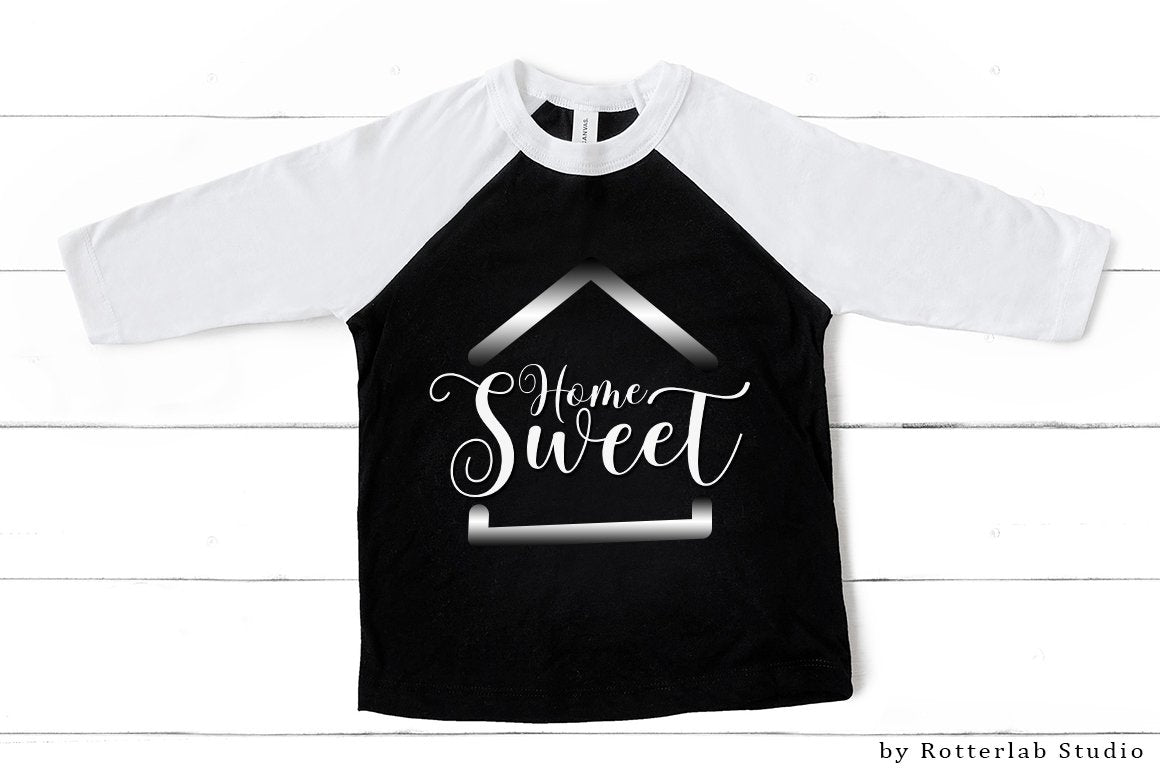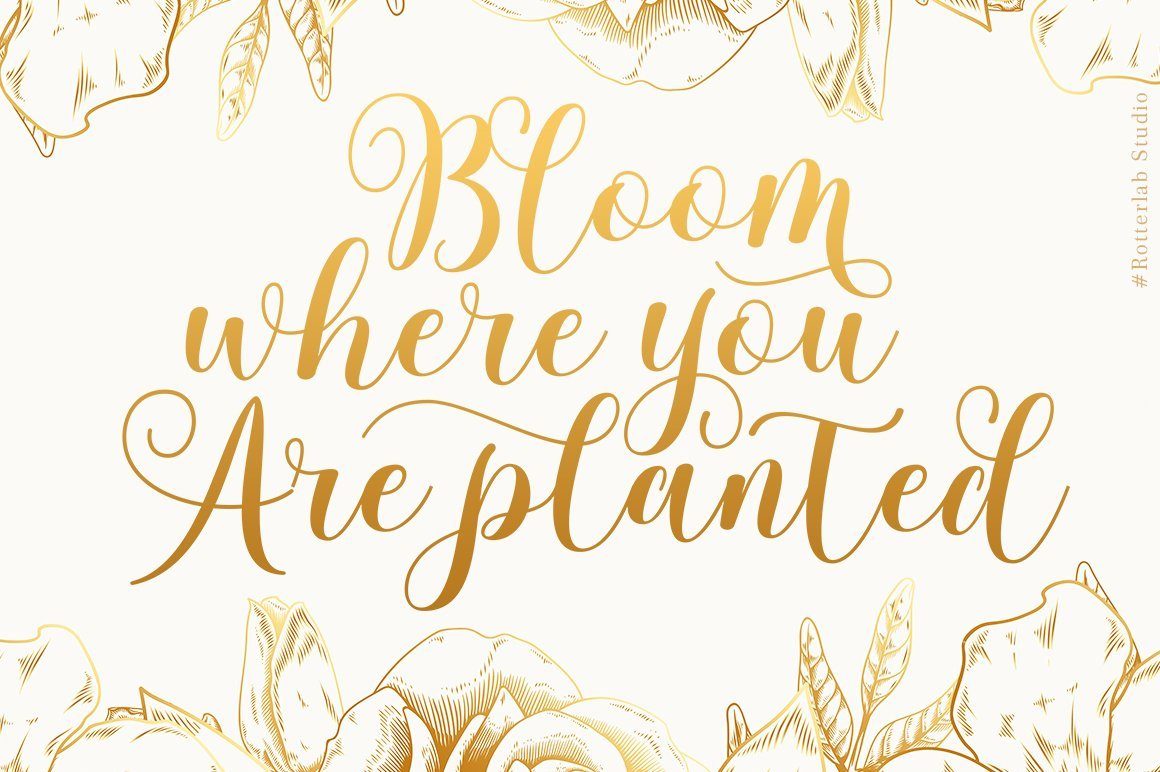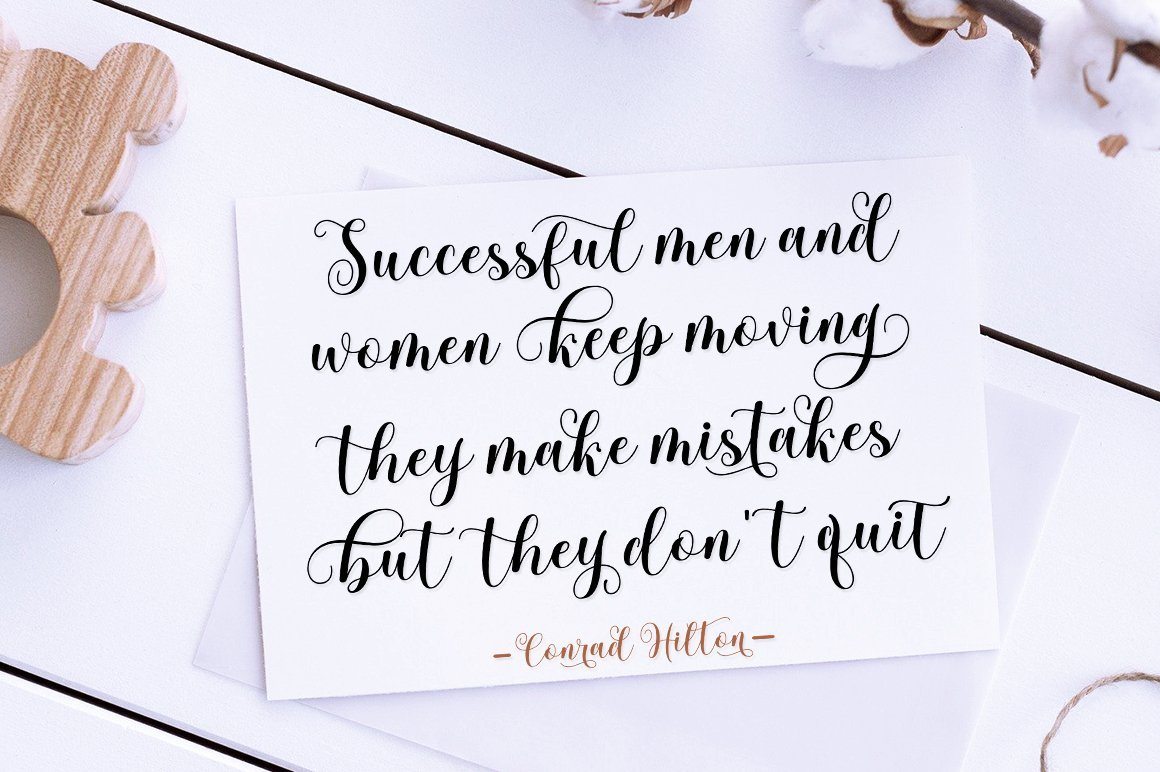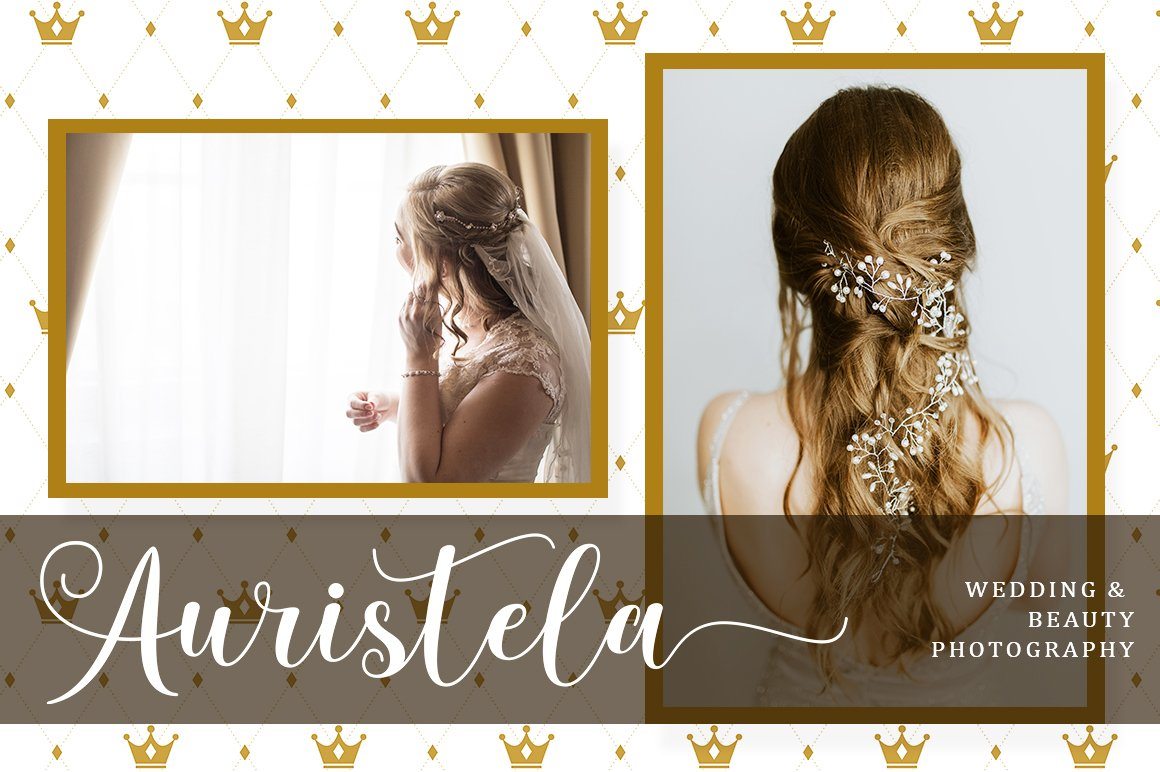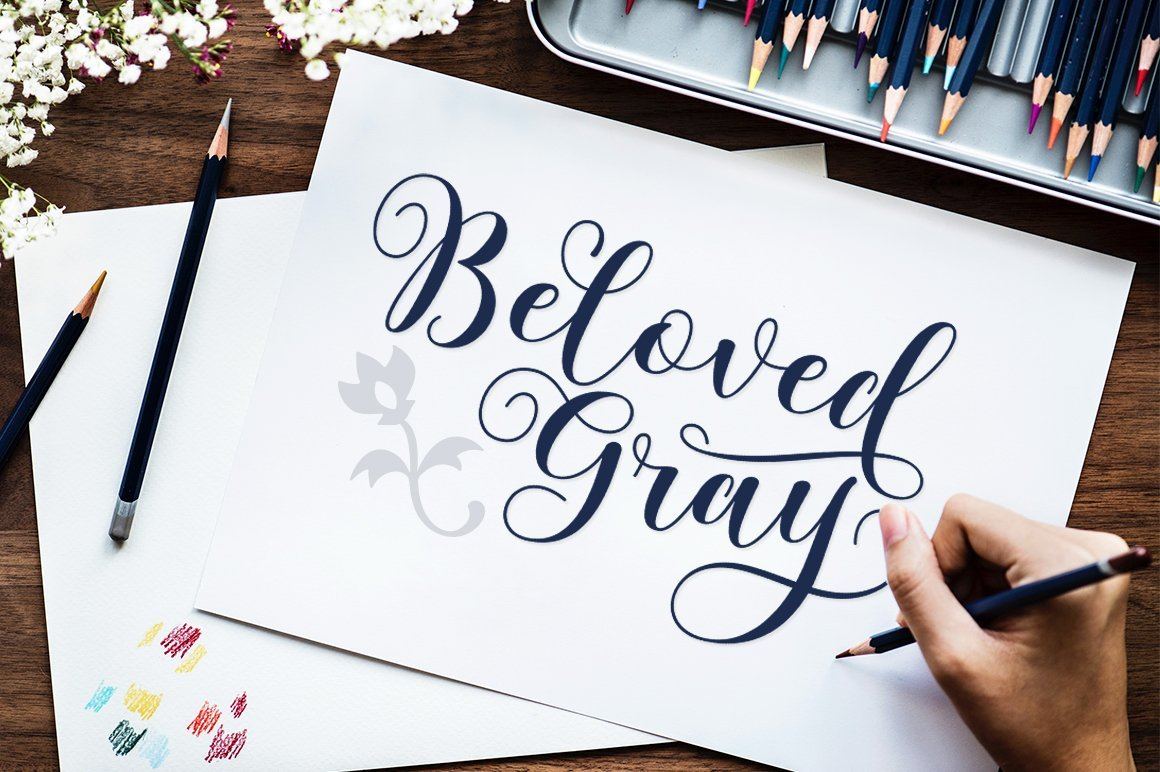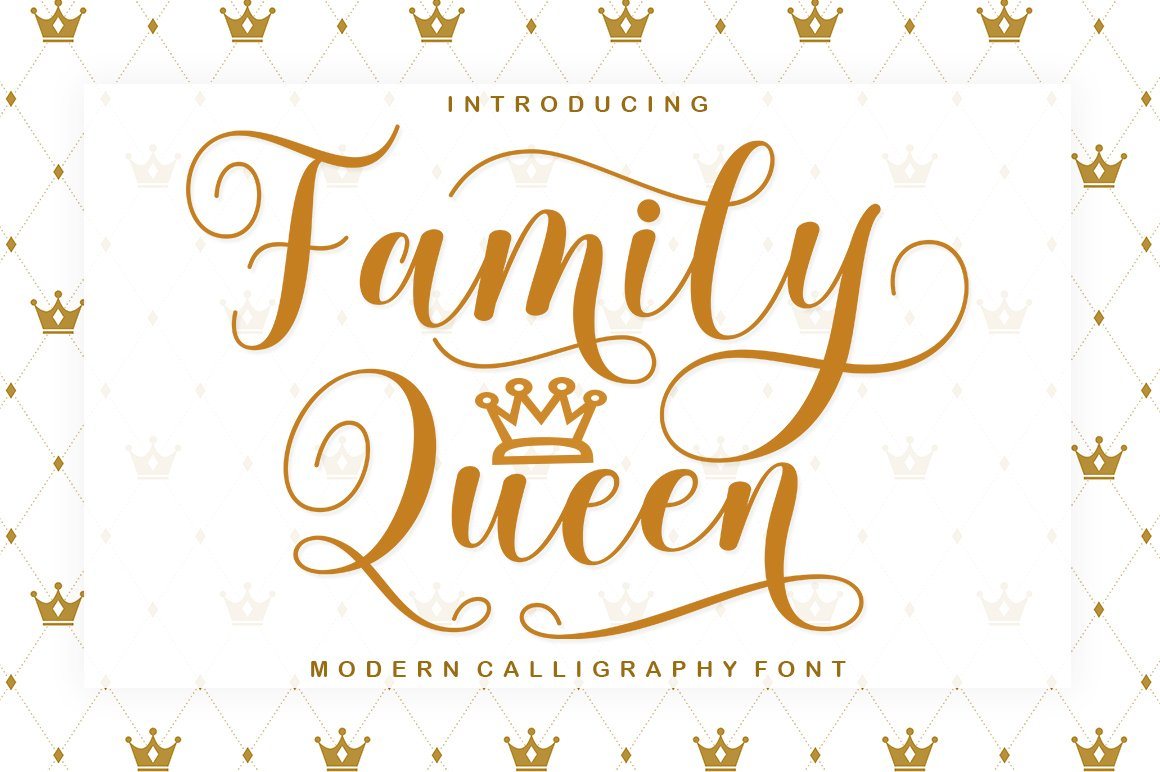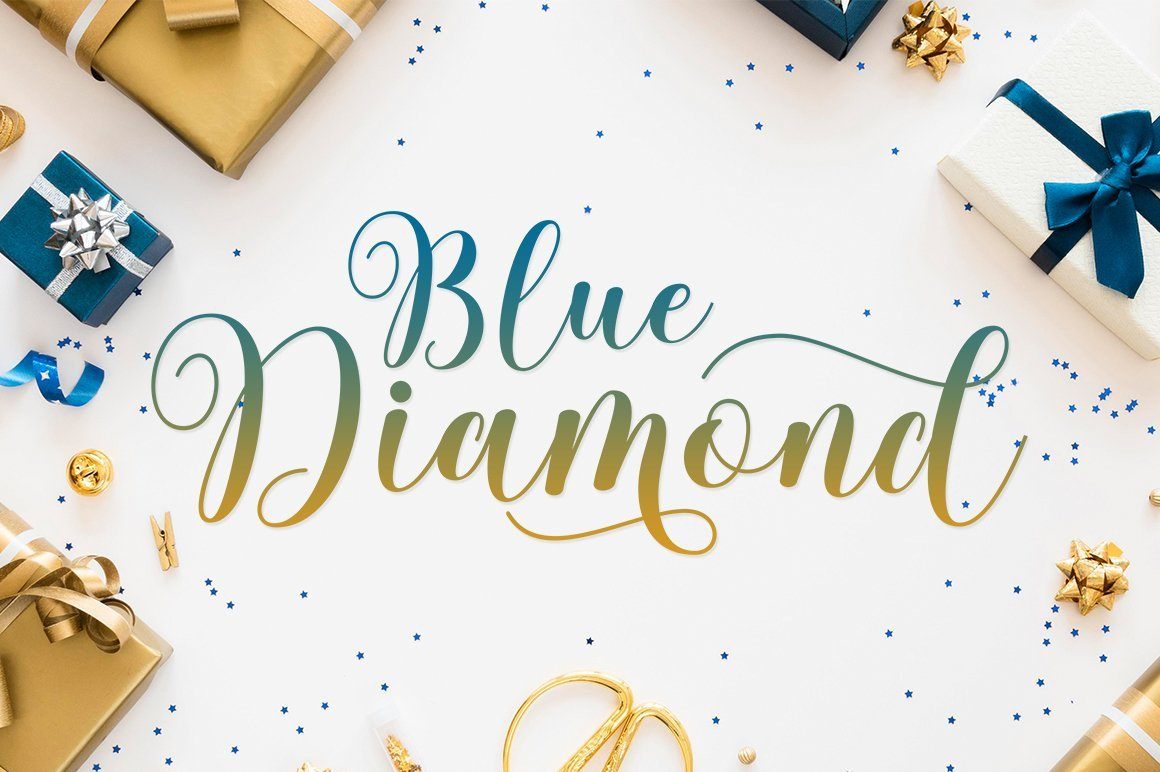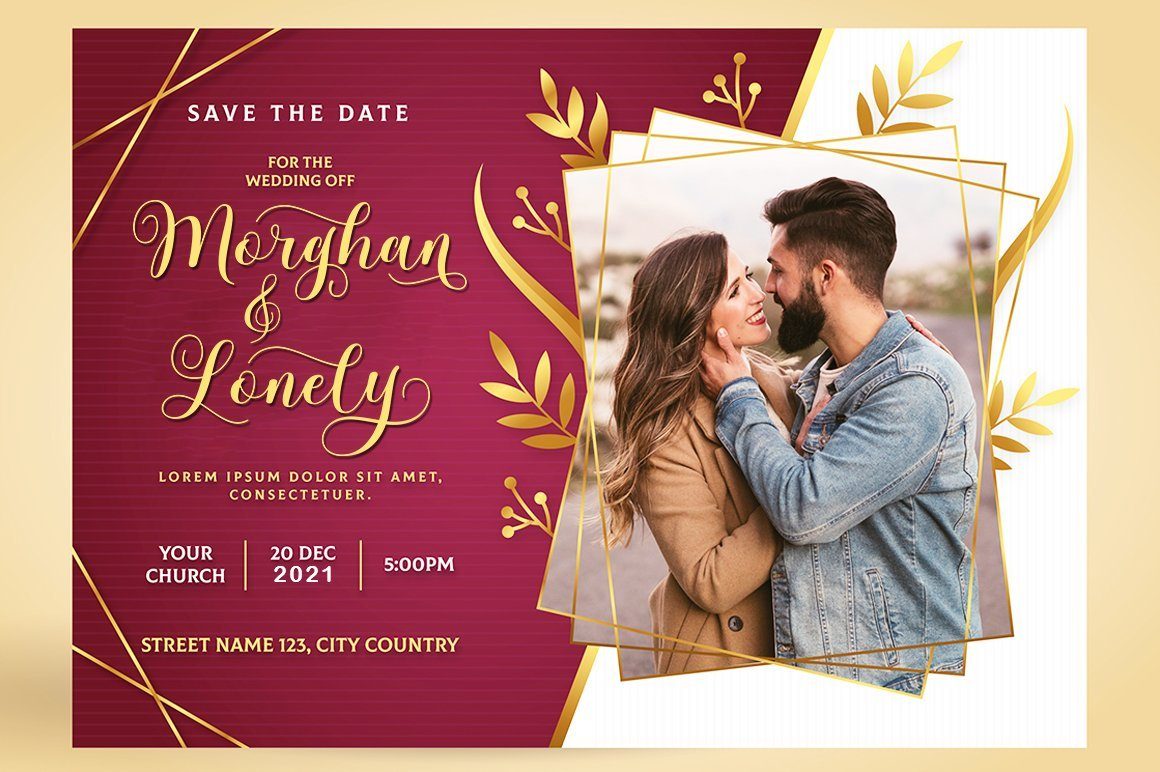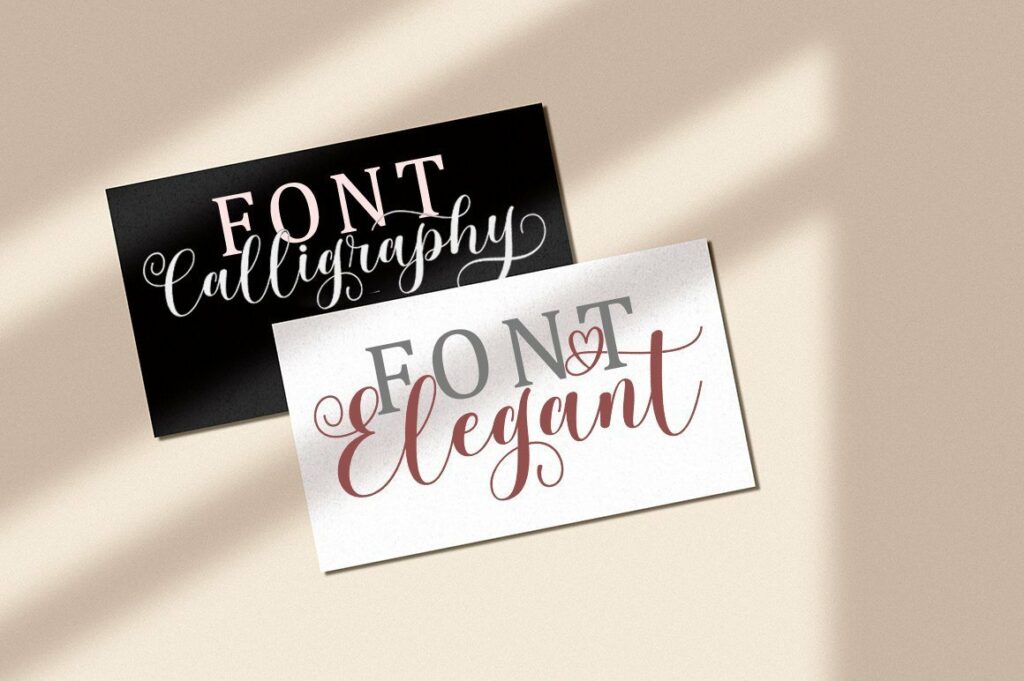
Family Queen
About Family Queen
Family Queen is a beautiful script font with many alternative styles, this font looks natural, elegant and perfect for any extraordinary project. Family Queen is suitable for various products such as invitations, product packaging, product design, crafter, labels, photography, watermarks, logos & branding. Everything can be accessed using software that supports Opentype, such as Adobe Indesign, Adobe CS Illustrator, Adobe Photoshop CC, and Corel Draw. You will get: Family Queen OTF Family Queen TTF Please send a message if you have questions, Thank you 🙂